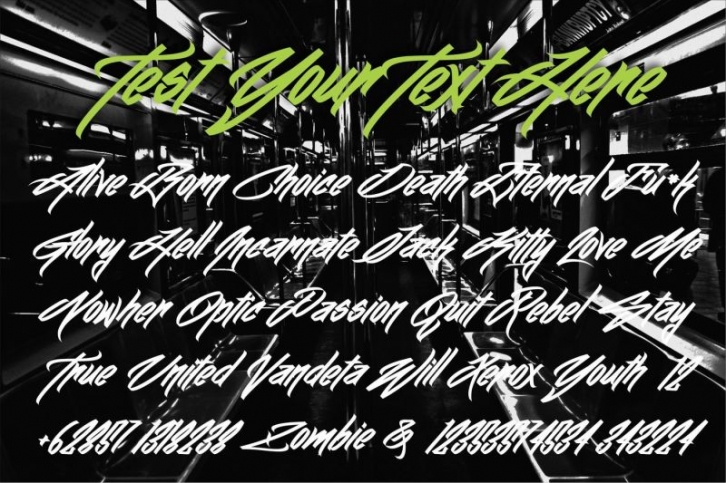
Wall Hunter Two ia an new combination Tagging Graffiti, still inspired by street artist around the world
structure in fine curve with upercase and lowercase have different degrees of size but still synchronized make some artistic font and good modification for best part.